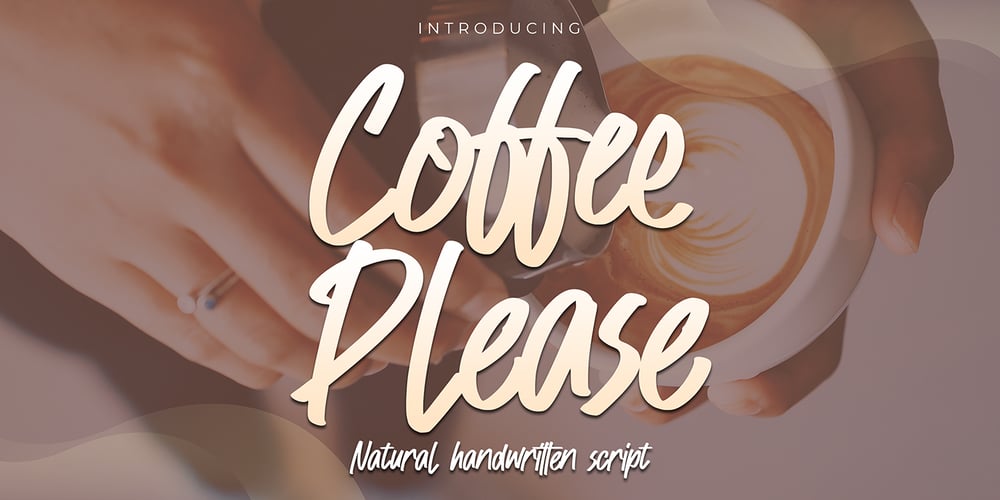
Coffee Please
Coffee Please font
Coffee Please Font Family was designed by Abdul Malik Wisnu, Anang Fibriyanto and published by Gassstype. Coffee Please contains 1 styles and family package options. Hello Everyone, Introduce our new collection Coffee Please – Natural Handwritten Script Font with a natural style and dramatic movement. Crafted manually with love and passion, This font is great for your next creative project such as logos, printed quotes, invitations, cards, product packaging, headers, Logotype, Letterhead, Poster, Label, and etc.This handmade font will make your design has a beautiful natural touch for each details.This font is PUA encoded which means you can access all of 8 Ligatures glyphs.